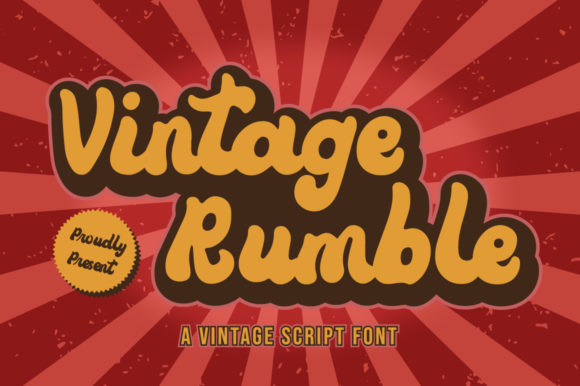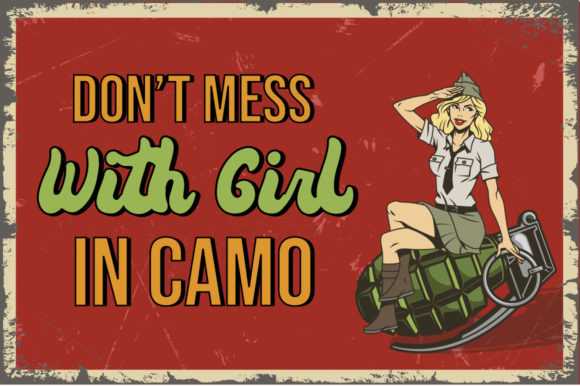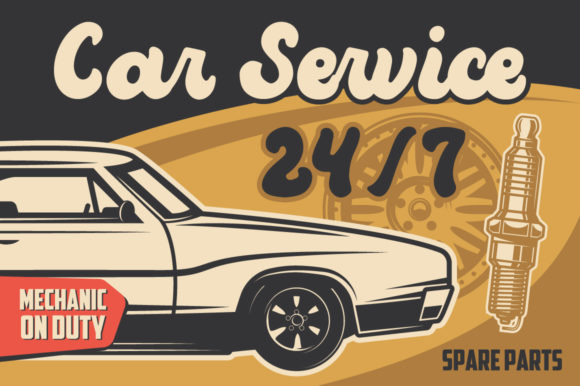
Vintage Rumble Font
Vintage Rumble is a flowing handwritten font, described by an elegant touch, perfect for your favorite projects. Fall in love with its incredibly distinct and timeless style and use it to create spectacular designs!